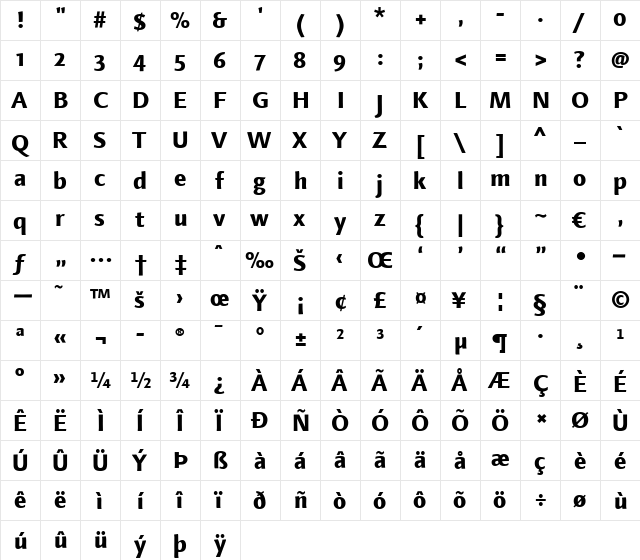
LTFinnegan OsF Medium Bold Font Preview
LTFinnegan OsF Medium Bold
LTFinnegan OsF Medium Bold Font Details
| Designer | Juergen Weltin |
Design Context for LTFinnegan OsF Medium Typeface
LTFinnegan OsF Medium takes a measured approach to typography — its balanced proportions and neutral character make it a reliable workhorse for both digital and print work. The heavy weight commands attention and anchors typographic hierarchies.